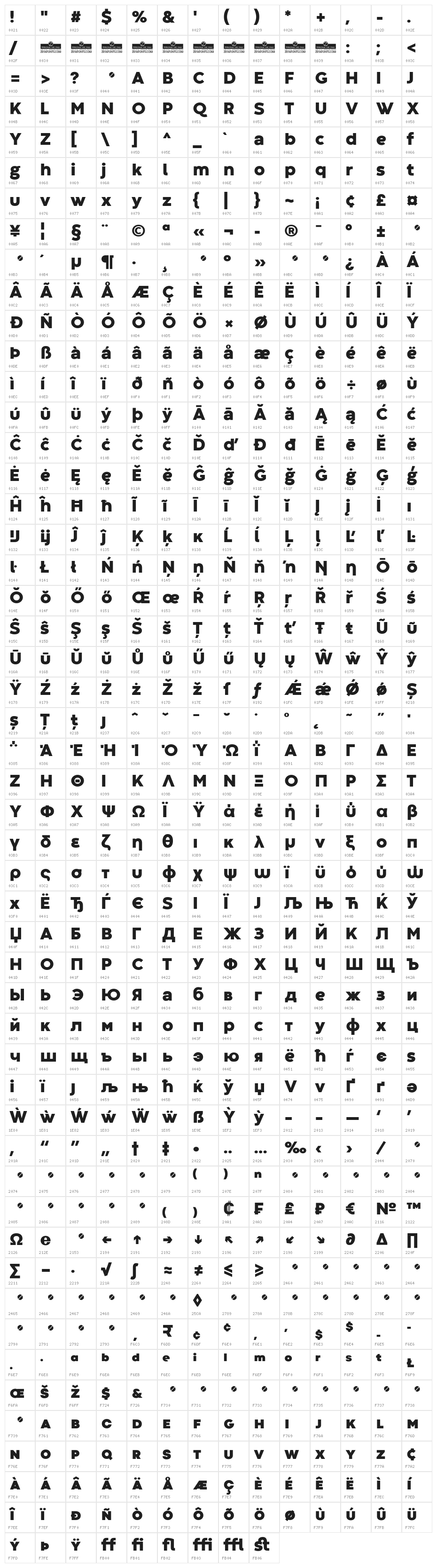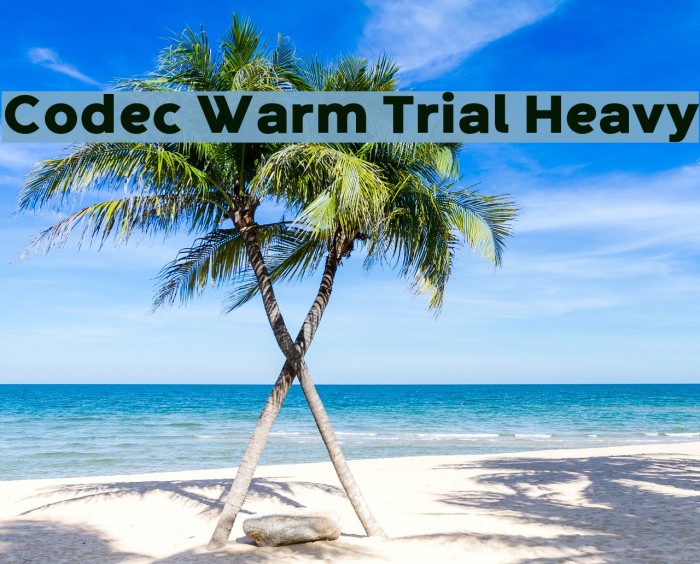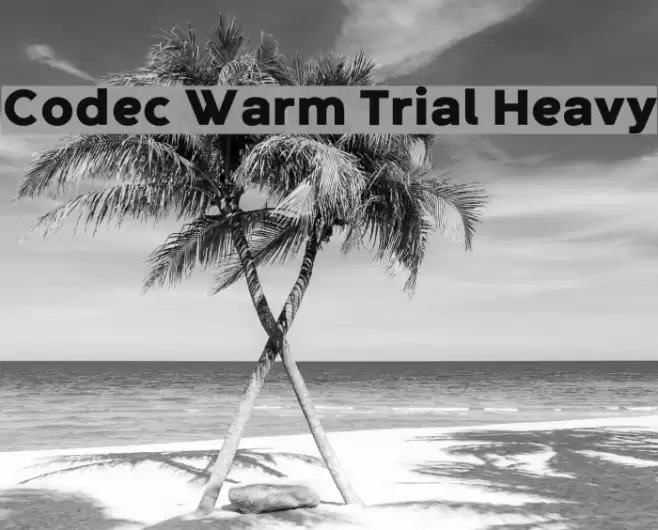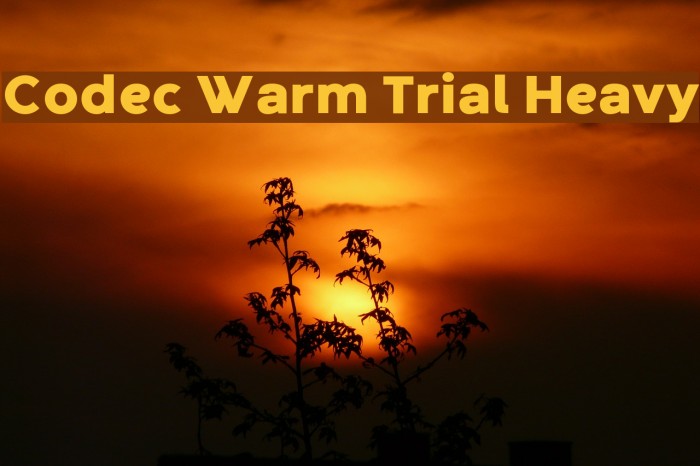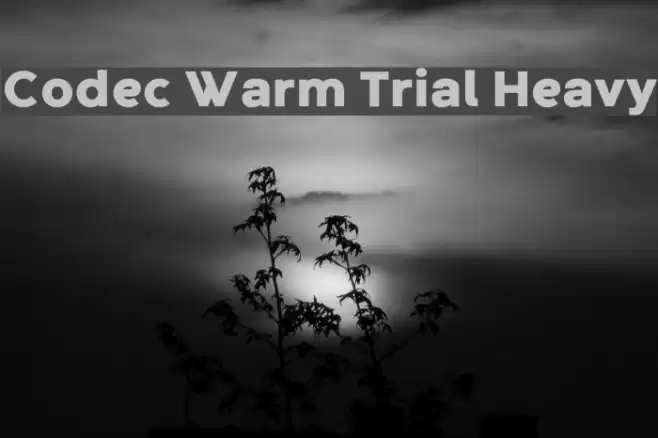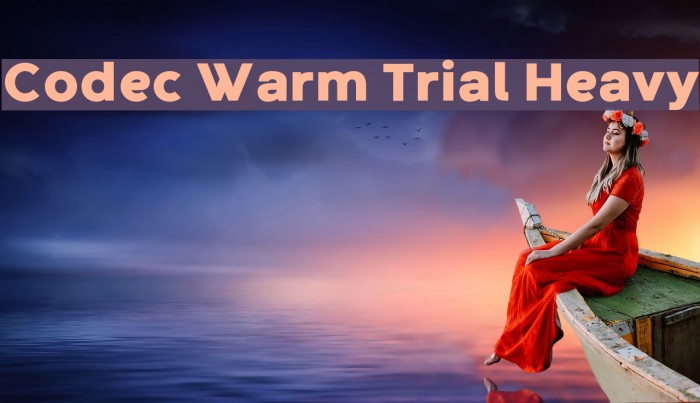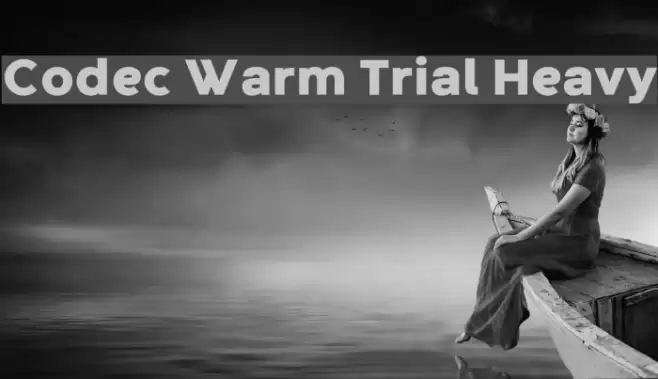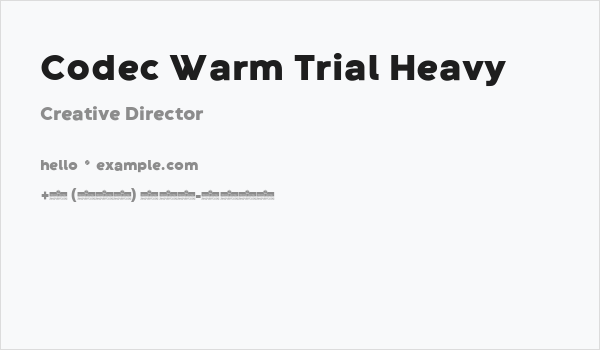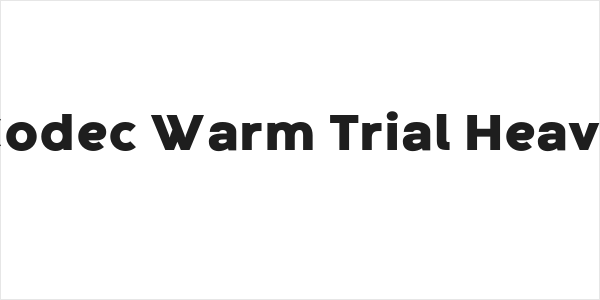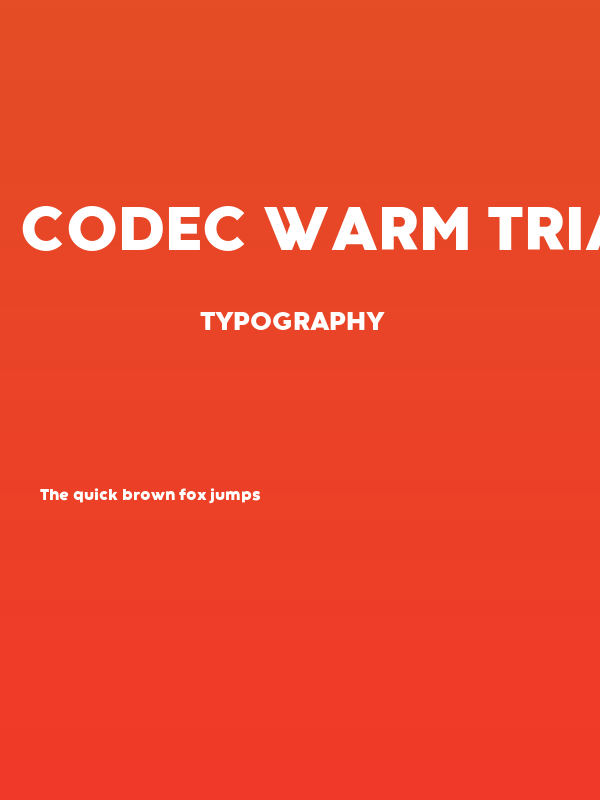
Codec Warm Trial Heavy Font
Codec Warm Trial Heavy Description
This font exhibits a bold and modern aesthetic with clean lines and a strong presence. The uppercase letters are robust and evenly spaced, providing a sense of stability and confidence. The lowercase letters maintain a consistent weight, ensuring readability and balance. The numerals are clear and straightforward, matching the overall boldness of the font. Special characters are well-integrated, maintaining the font's cohesive style. This typeface is versatile, suitable for a variety of design applications where a strong, impactful look is desired.